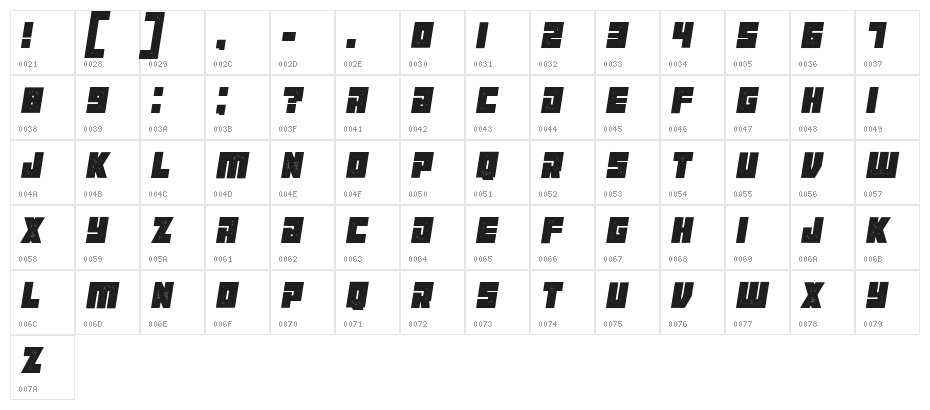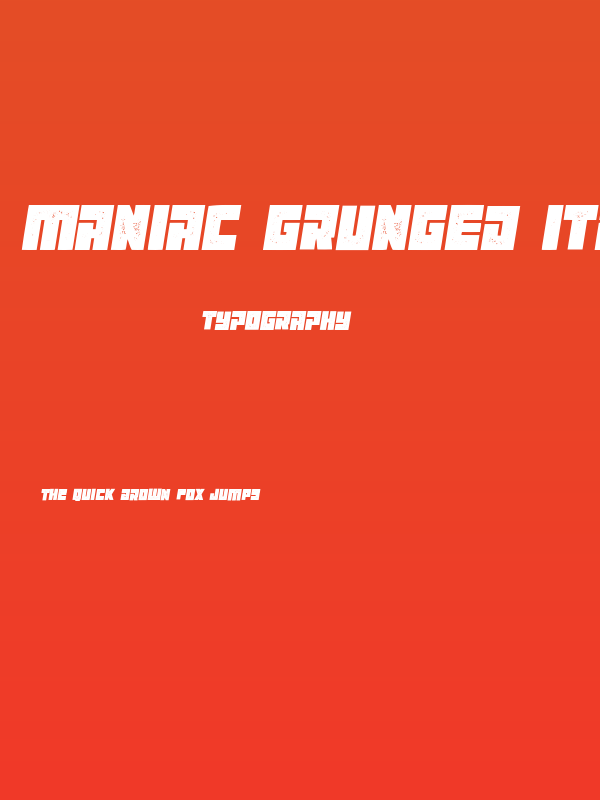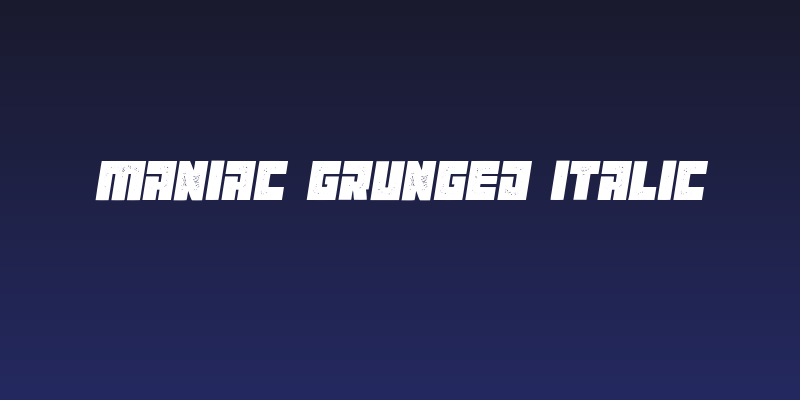
Maniac Grunged Italic Font
Maniac Grunged Italic Description
This font features a bold, italicized style with a distinctly grungy texture. Each character is designed with a rough, distressed appearance, giving it a rugged and edgy look. The letters are angular and geometric, with sharp edges and a blocky structure. The font maintains a consistent weight throughout, emphasizing its boldness. The italic slant adds a dynamic and energetic feel, making it stand out in any design. The texture within the characters adds depth and a tactile quality, making it ideal for projects that require a gritty, urban aesthetic.
Overall StyleGrunge, Urban, Edgy
Proposed ProjectsIdeal for music album covers, streetwear branding, poster designs, and edgy digital media projects.